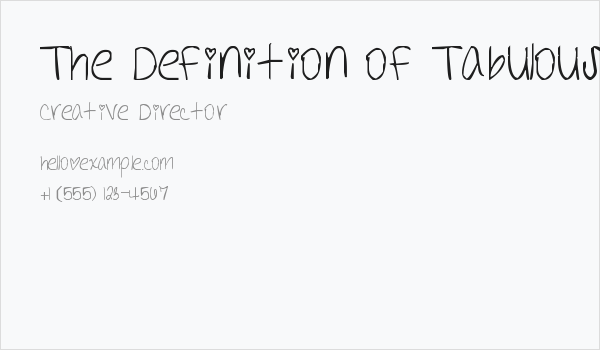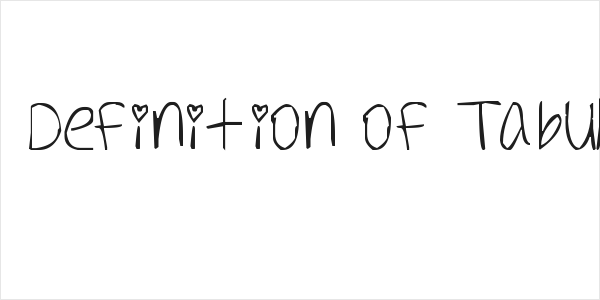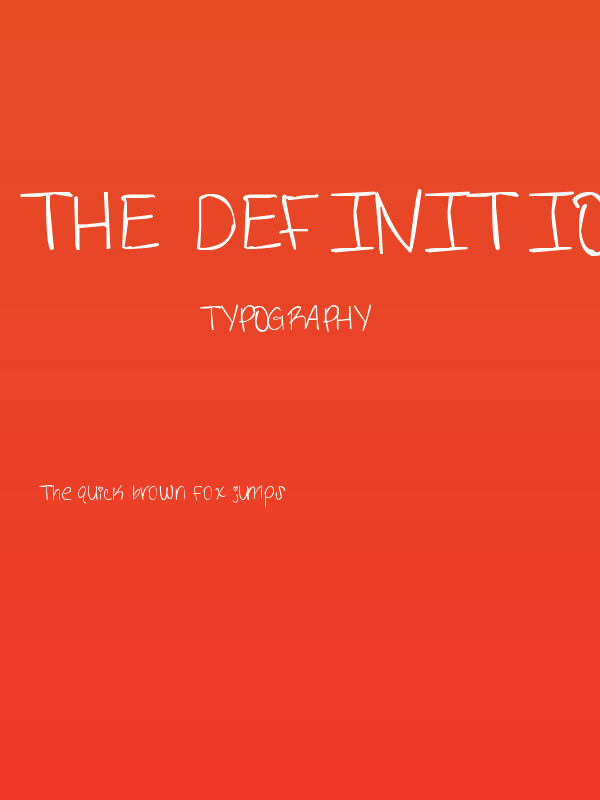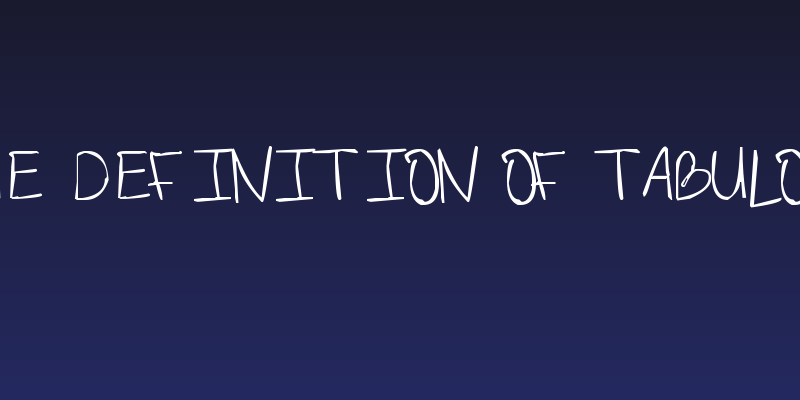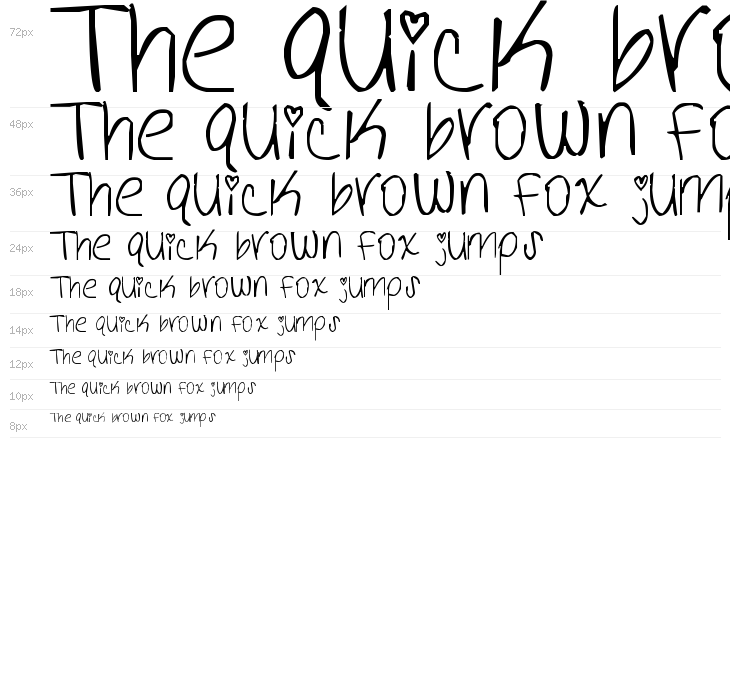
The Definition of Tabulous Font
The Definition of Tabulous Description
This playful and whimsical font features a handwritten style with a casual and informal appearance. The letters are unevenly sized and spaced, giving it a lively and dynamic feel. The uppercase and lowercase letters are distinct, with some characters incorporating unique elements like hearts in the lowercase 'i' and 'j'. The numbers are bold and slightly exaggerated, adding to the font's quirky charm. Special characters are creatively designed, maintaining the overall playful theme. This font is perfect for projects that require a fun and lighthearted touch.